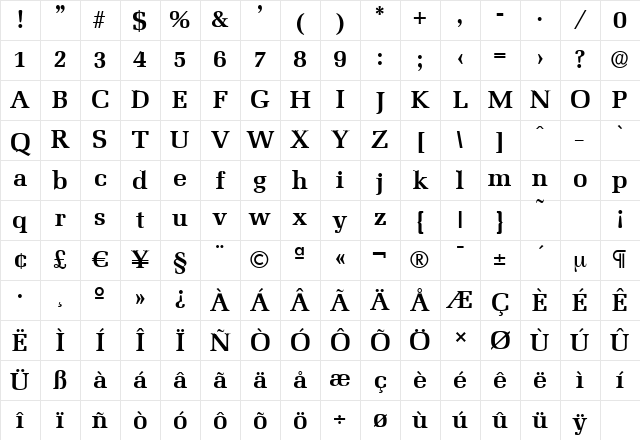
MarseilleSerial Bold
MarseilleSerial Family
MarseilleSerial Bold
Complete MarseilleSerial Bold glyph index. Displaying only characters natively supported by MarseilleSerial Bold font.
Design Context for MarseilleSerial
MarseilleSerial is a composed and adaptable typeface that performs quietly and consistently across a wide range of design contexts. Its bold stroke weight gives it real presence on the page.